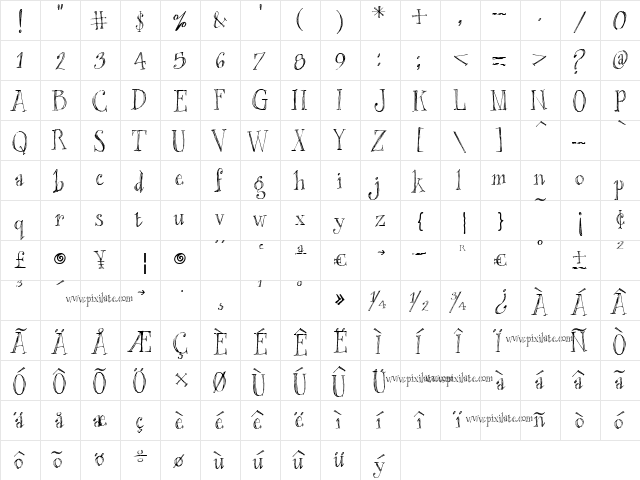
blackout serif Regular
| Foundry | Kemie Guaida / Pixilate.com |
| Designer | Kemie Guaida |
Design Context for blackout serif Typeface
blackout serif brings classic typographic sensibility to the table — its serifs and measured letterforms reflect centuries of print heritage.